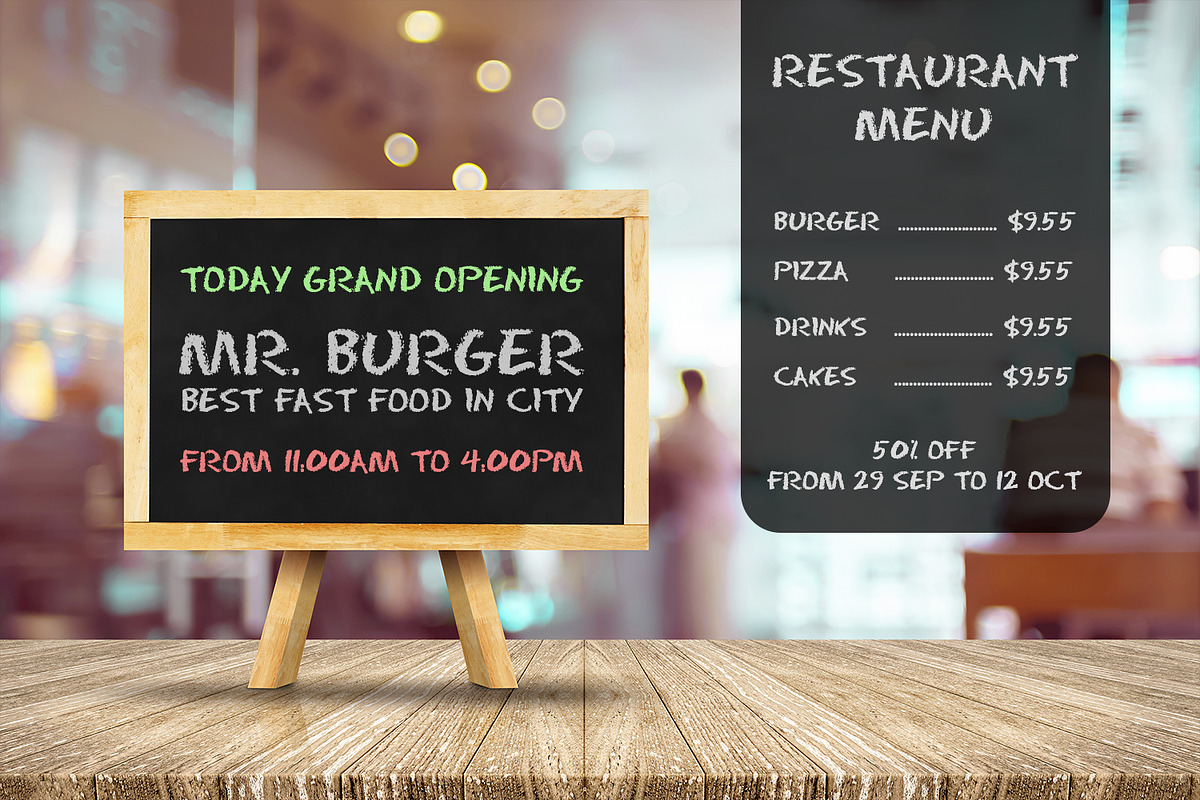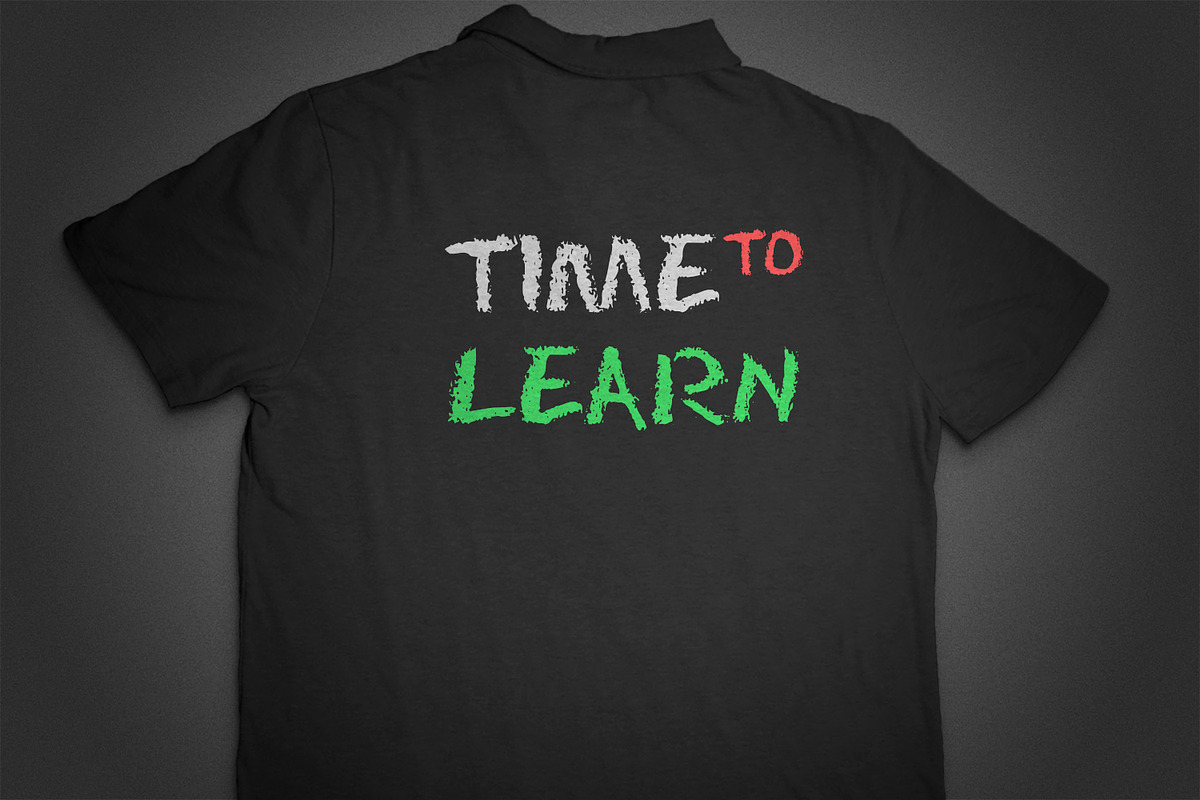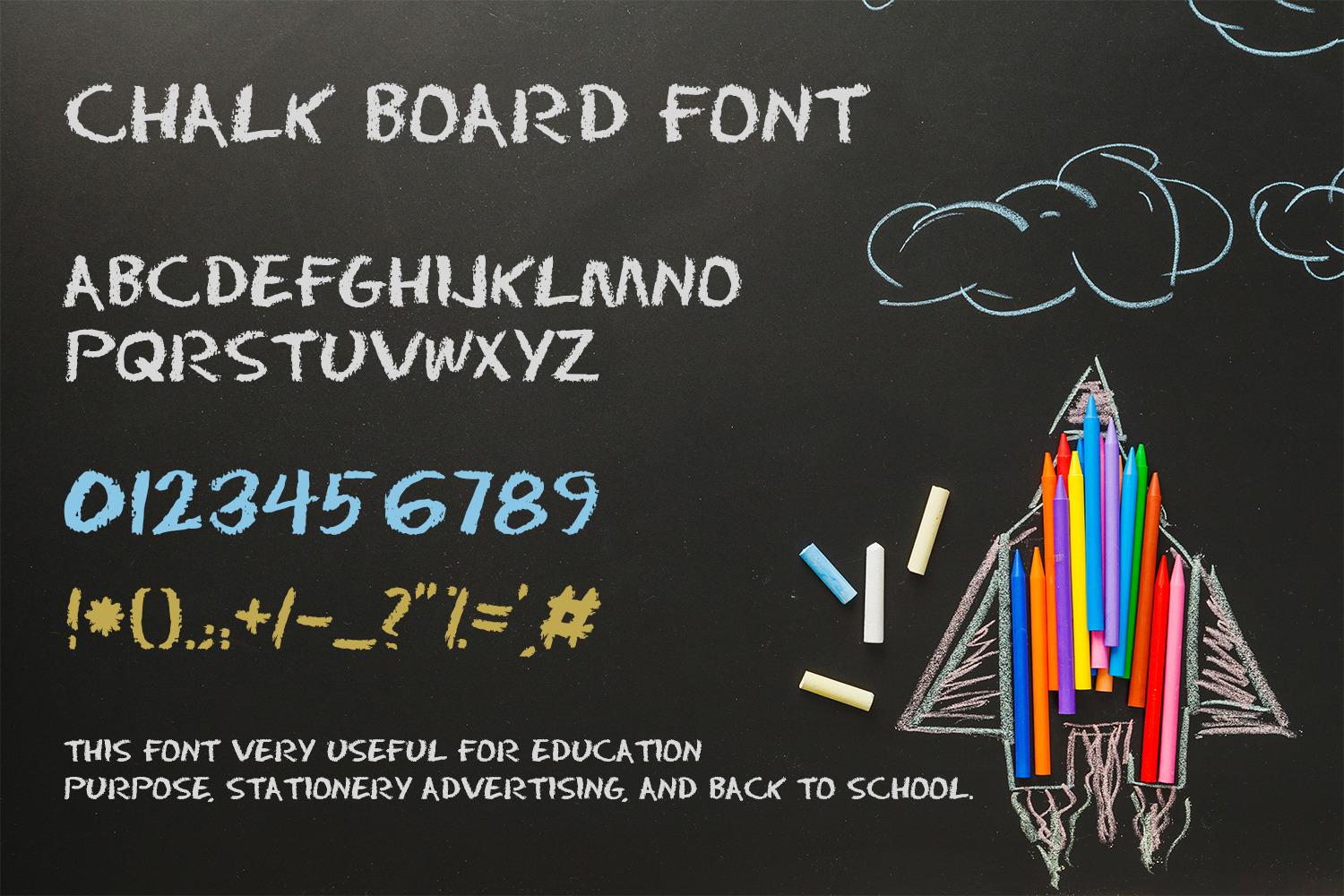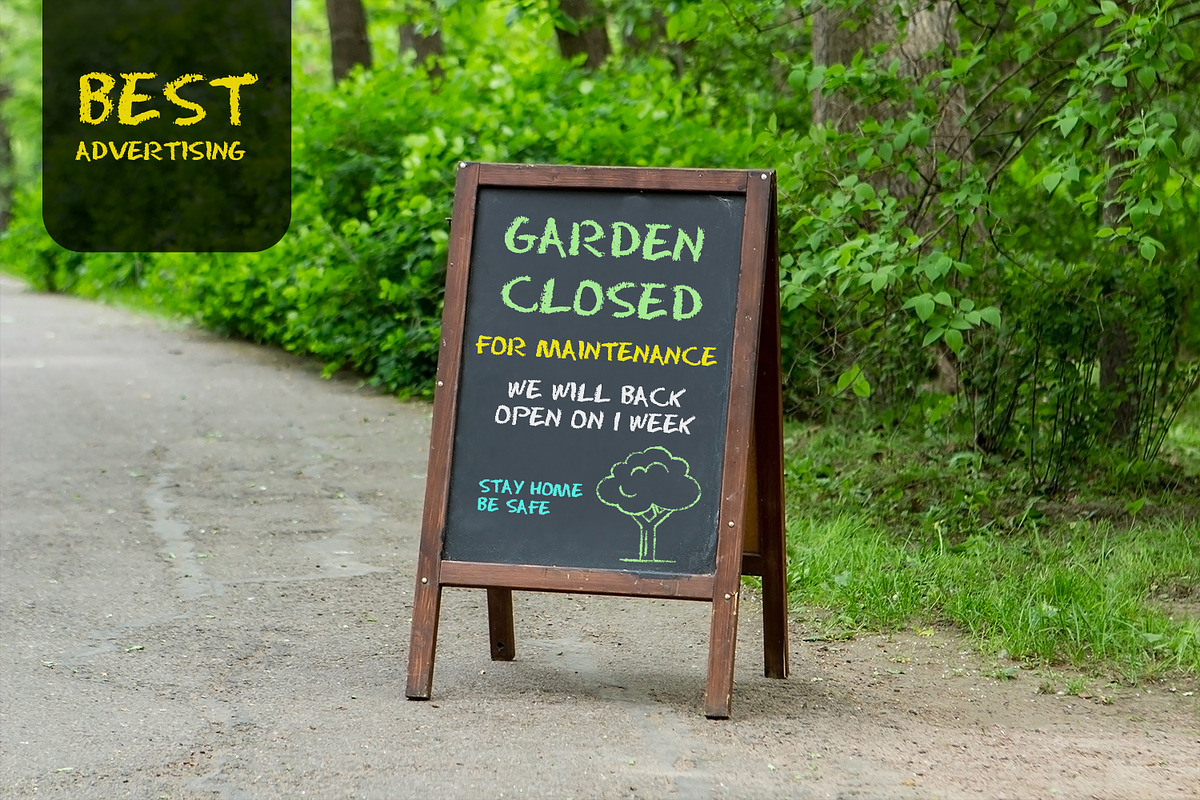
Chalk Board Font
Chalk Board is a great display font. It is perfect for school related projects. Add a unique chalkboard look to your projects with this great font!